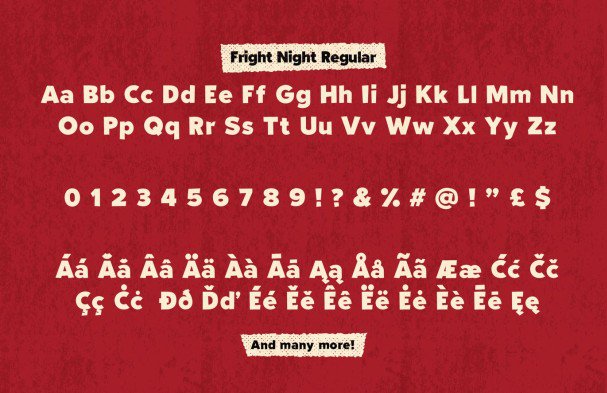
Fright Night Vintage Font
One of the most popular fonts for movies and Adobe is the Fright Night Vintage Horror Font. It is a wonderful choice for making text look fantastic.
That is well-incredible to drop caps and headlines. A model of preferred nineteen-thirties font Futura display, it’s stimulated via the manner of bernier font generator lettered posters from a bygone era.